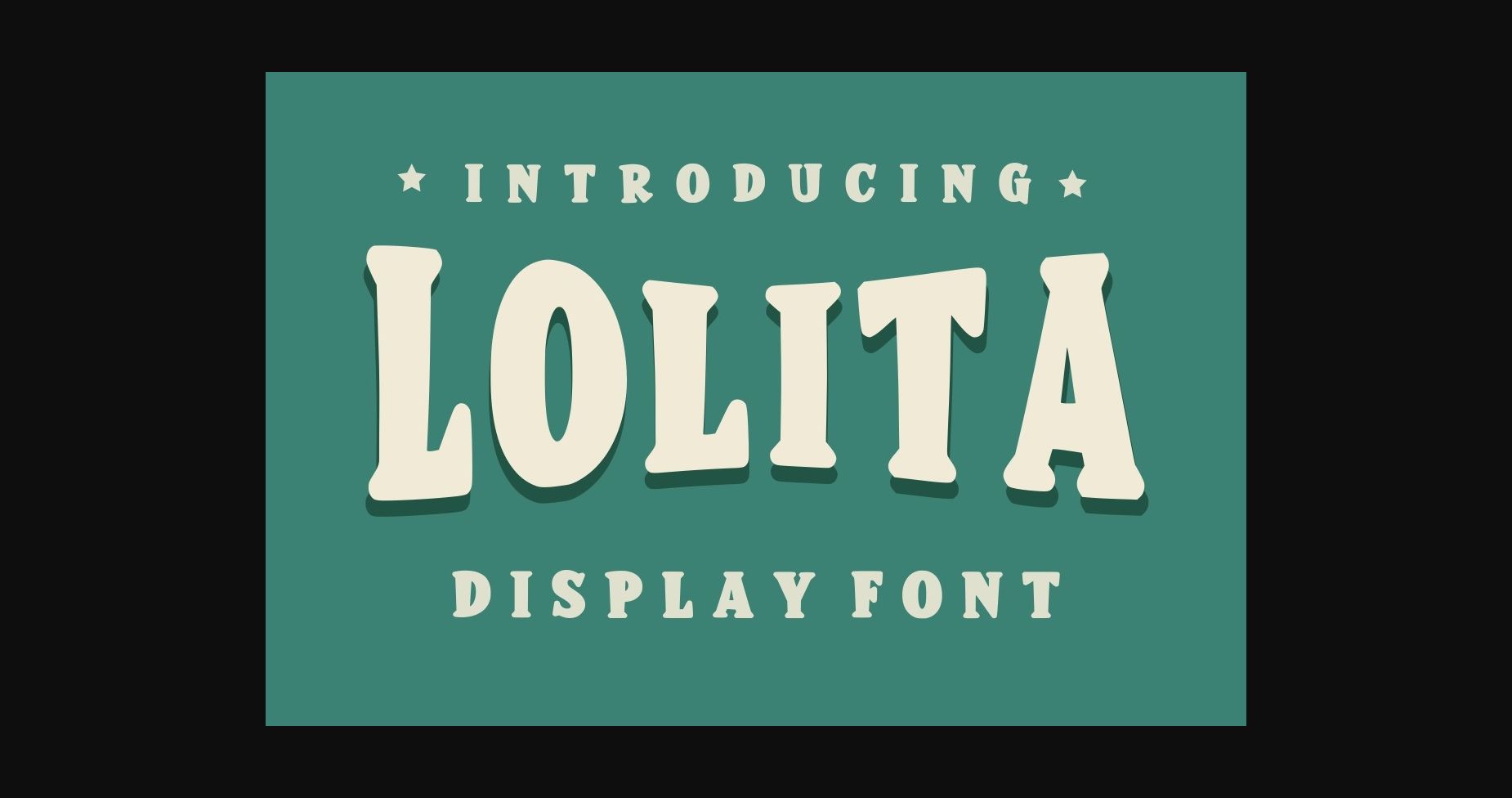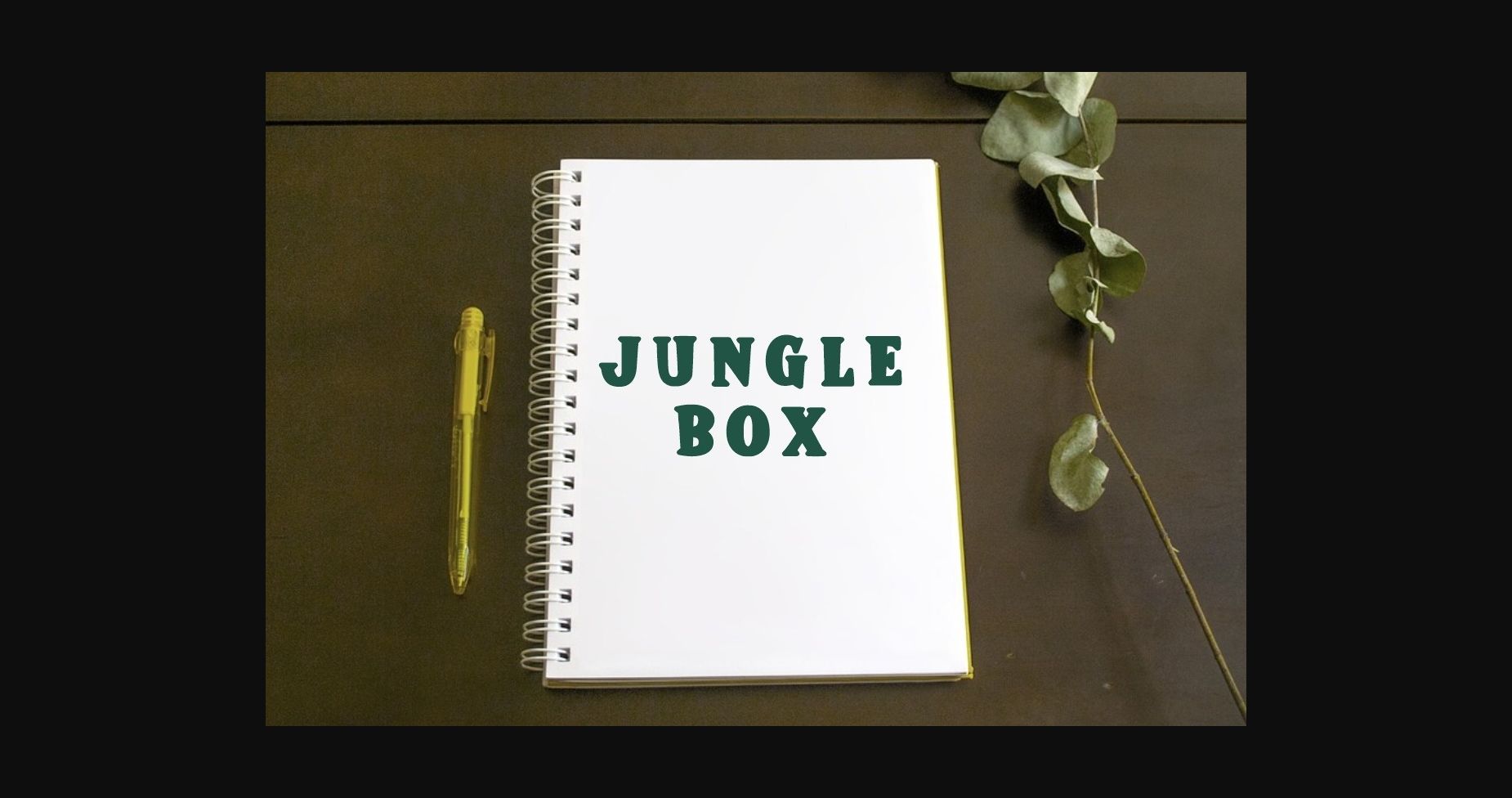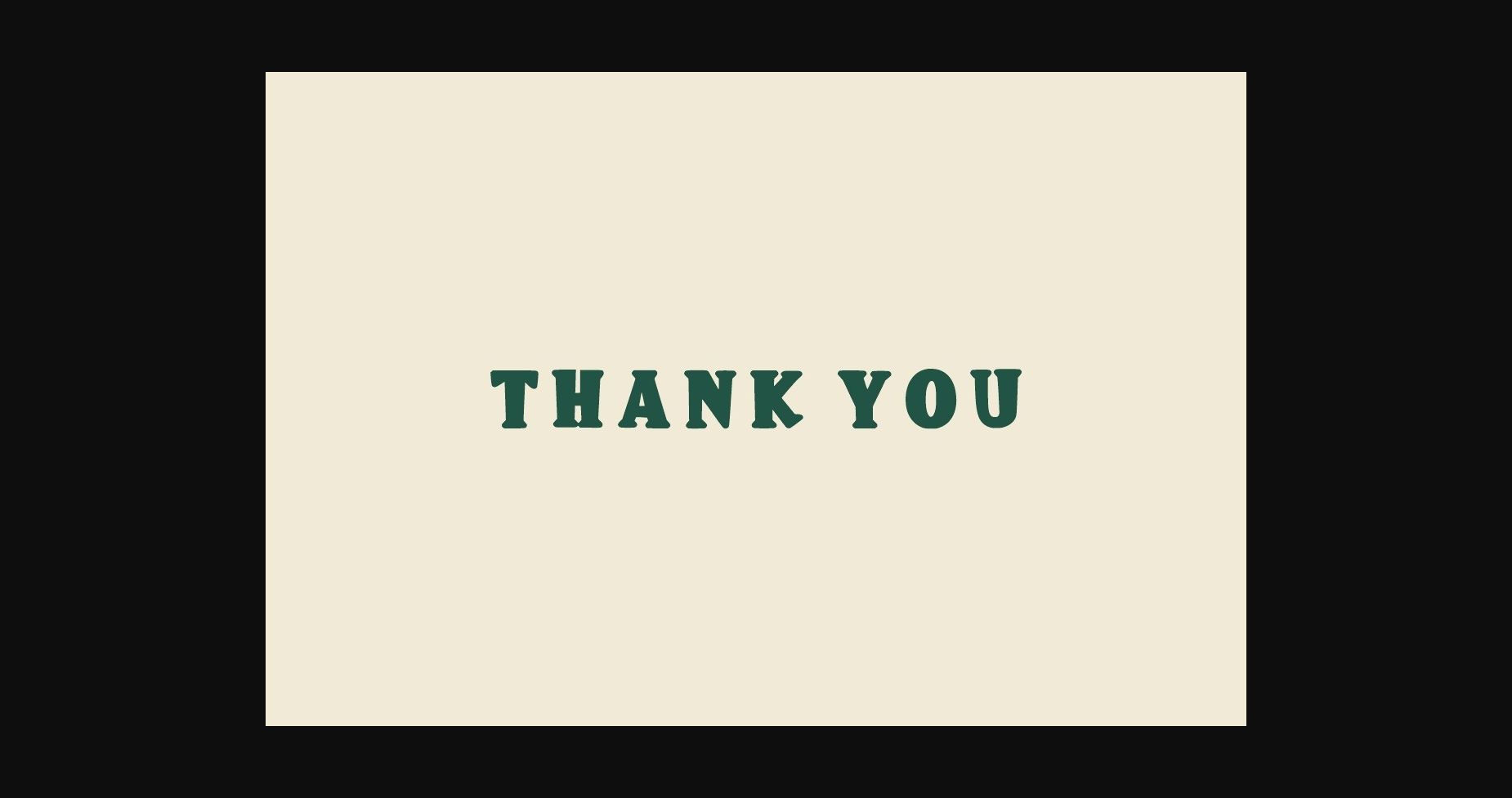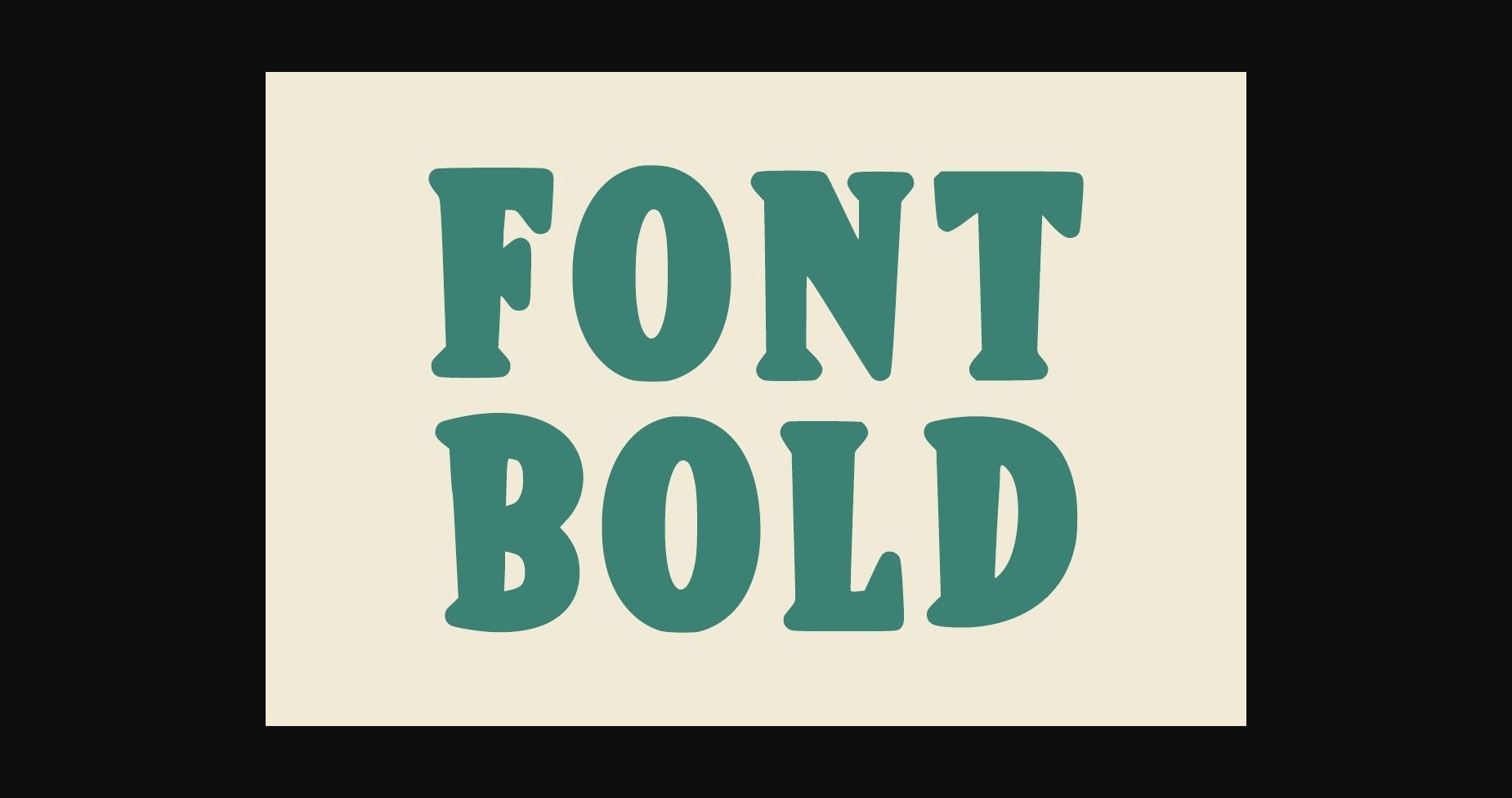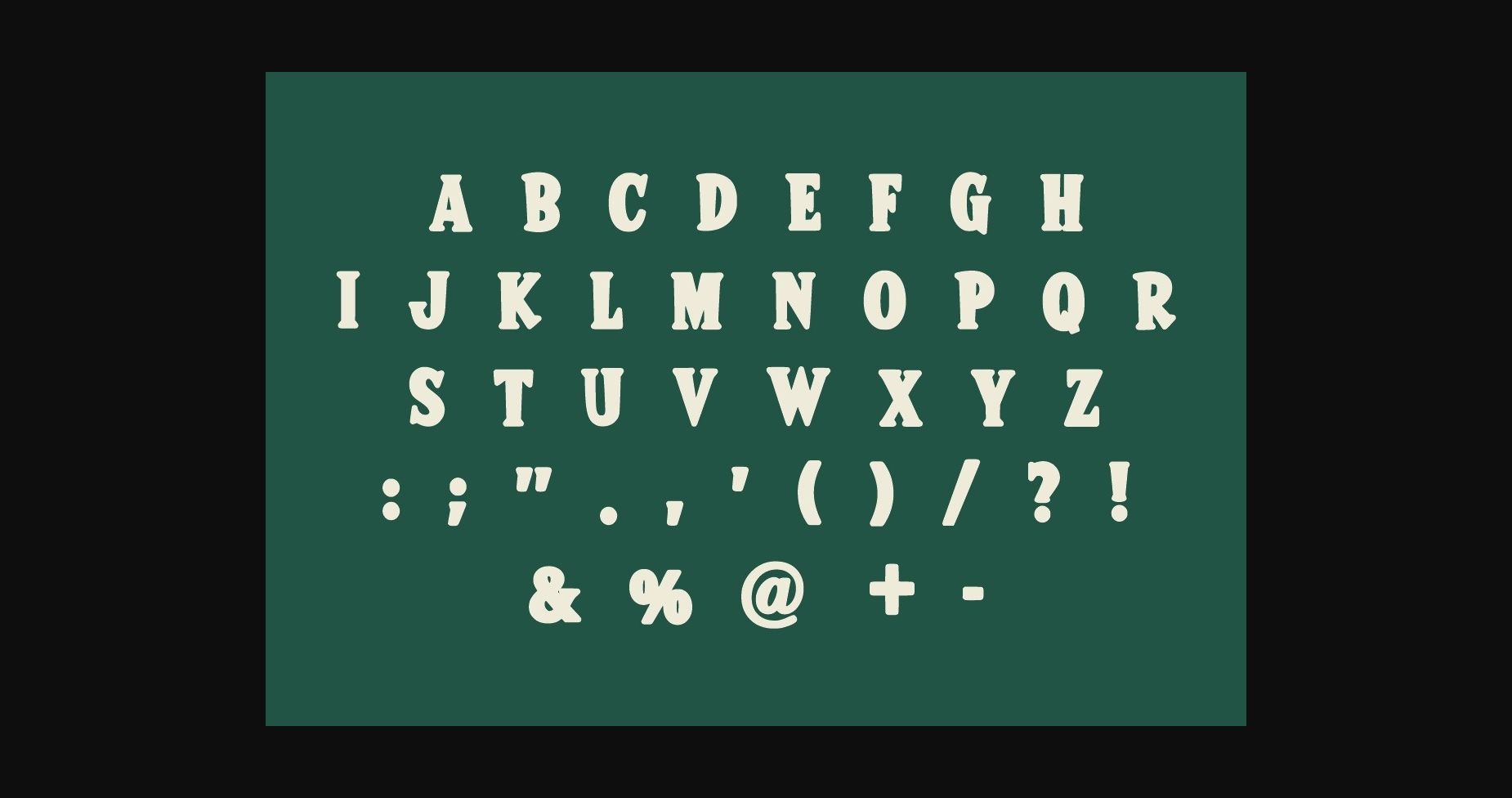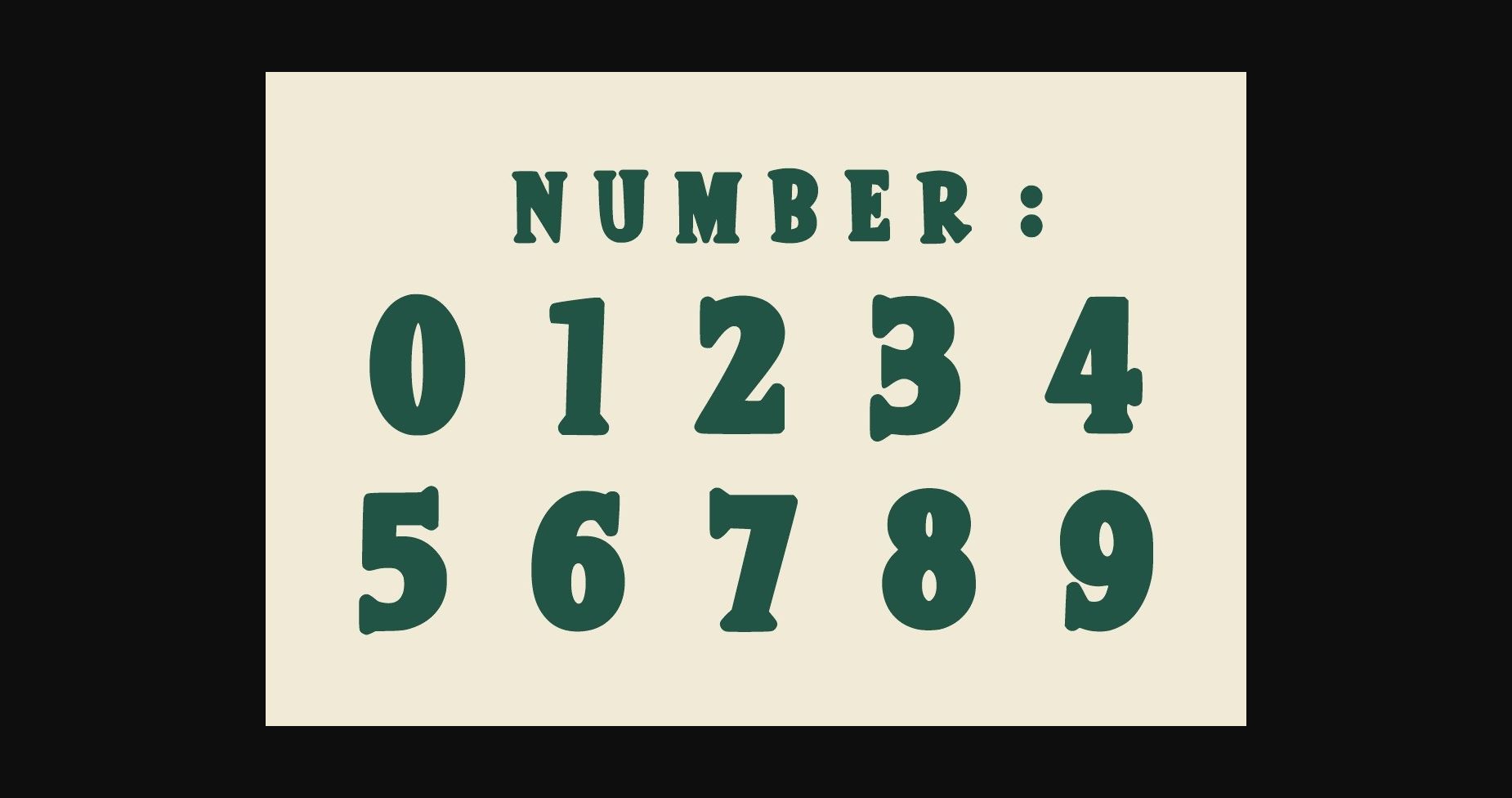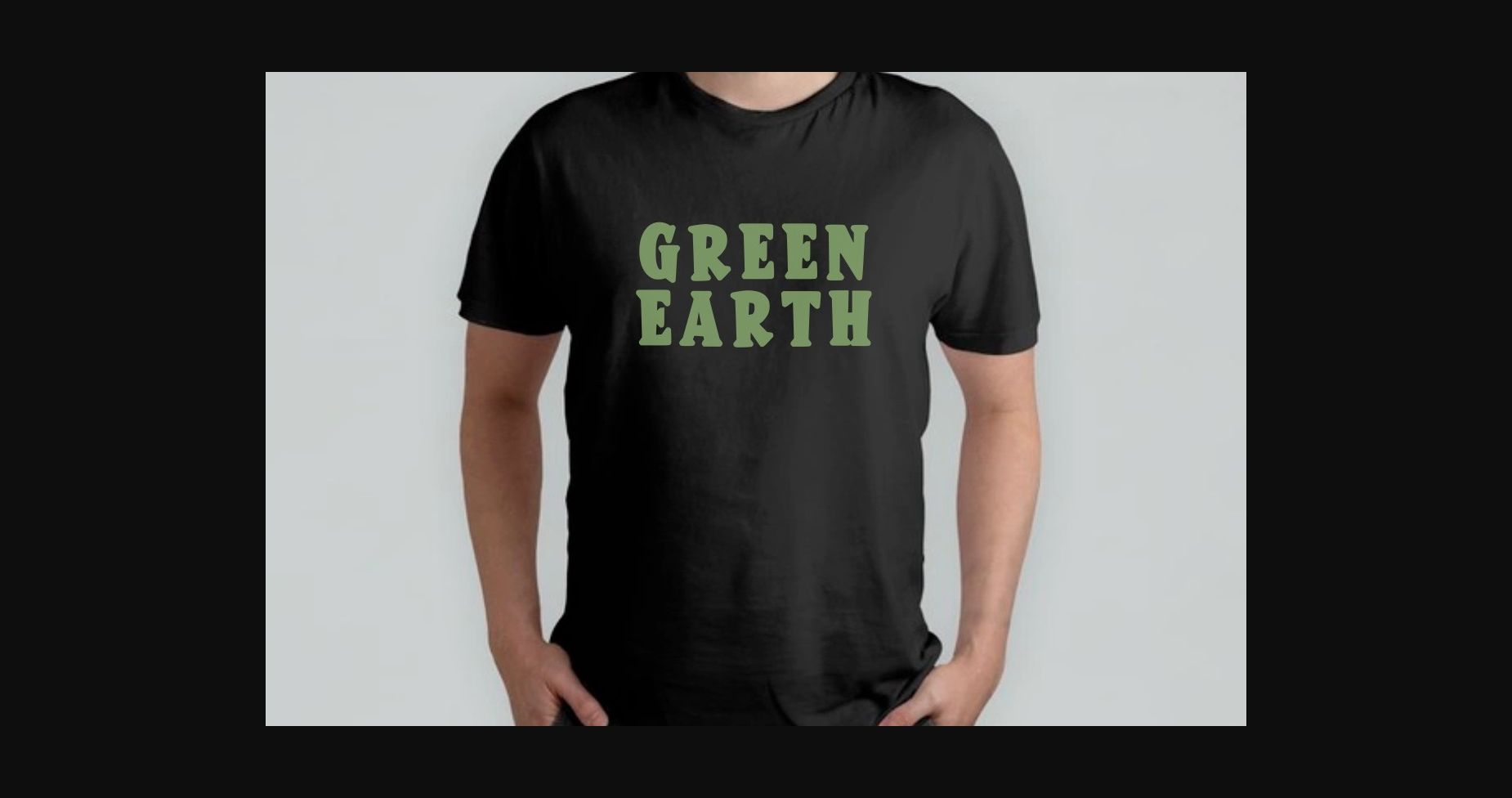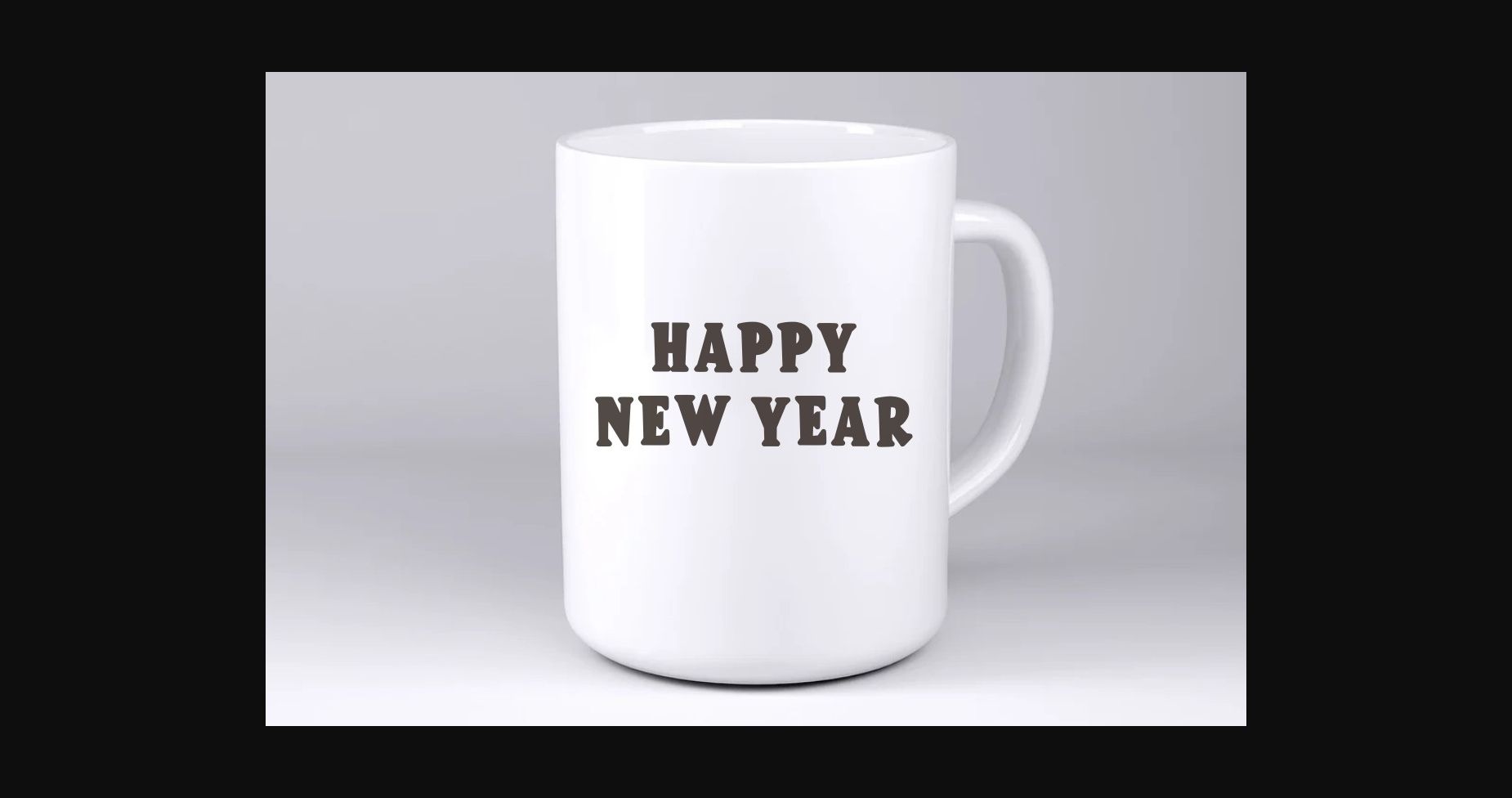
HomeSans Serif FontsLolita Font Sans Serif Fonts Lolita Font FacebookXPinterestWhatsApp 1 of 11 ... Lolita Font Poster 2... Lolita Font Poster 3... Lolita Font Poster 4... Lolita Font Poster 5... Lolita Font Poster 6... Lolita Font Poster 7... Lolita Font Poster 8... Lolita Font Poster 9... Lolita Font Poster 10... Lolita Font Poster 11... About Lolita Font Lolita is a stunning retro-styled sans serif font. Its classic & vintage feel will be a great addition to many projects. It is perfect for headlines, sporting events, text effects, posters, logos, or monogrammed designs. DOWNLOAD NOW People also explored Pamella Script Font Alawiyah Font Cowboys Font Lucia Font Bella Ciao Font Delistha Signature Font Notificateur Font Mistery Heart Font The Signature Font 388 0 TagsLolitaLolita Font Previous articleIntently Created FontNext articleArchason Font LEAVE A REPLY Cancel reply Comment: Please enter your comment! Name:* Please enter your name here Email:* You have entered an incorrect email address! Please enter your email address here Website: Save my name, email, and website in this browser for the next time I comment. Personal Use Free Stone Garden Personal Use Free Read more about this font Love Memories Personal Use Free Read more about this font Krase Personal Use Free Read more about this font Angista Script Personal Use Free Read more about this font BLOG How to Install and Use Fonts on Windows, macOS, and Web Projects How to Install and Use Fonts on Windows, macOS, and Web Projects Fonts are a crucial part of design and branding. Whether you’re designing a... Top 10 Handwritten Fonts That Elevate Your Designs Best Fonts for T-Shirt Design – Top 2025 Picks Best Fonts for YouTube Videos: Make Your Thumbnails Stand Out